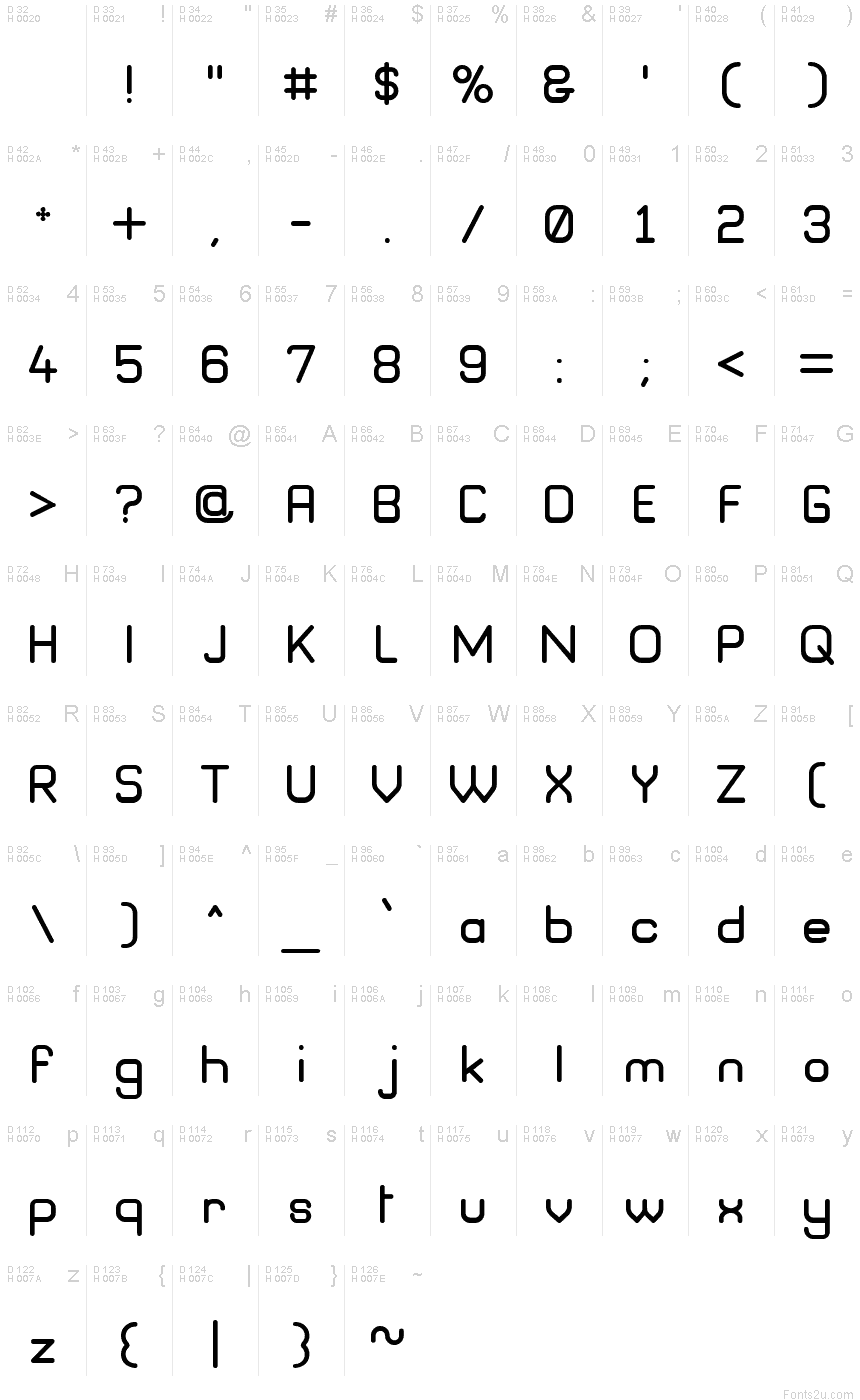
Brave New Era G98
Brave New Era G98 font by Gemfonts is a free modern display typeface with a sleek, sci‑fi edge. Its tall, tubular letters and tight rhythm feel like they’ve been lifted from a retro-futuristic interface-smooth curves meet straight strokes in a way that reads both technical and playful. The uniform weight gives text a clean, streamlined flow, while the quirky forms add just enough character to stand out at a glance.
Using Brave New Era G98, headlines instantly take on a digital, forward-looking tone, making this free font a natural fit for game titles, tech branding, sci‑fi posters, UI mockups, event flyers, and YouTube thumbnails. It shines when set large with generous letterspacing; pair it with a simple, neutral sans-serif for body copy to keep layouts readable while the title does the visual storytelling.